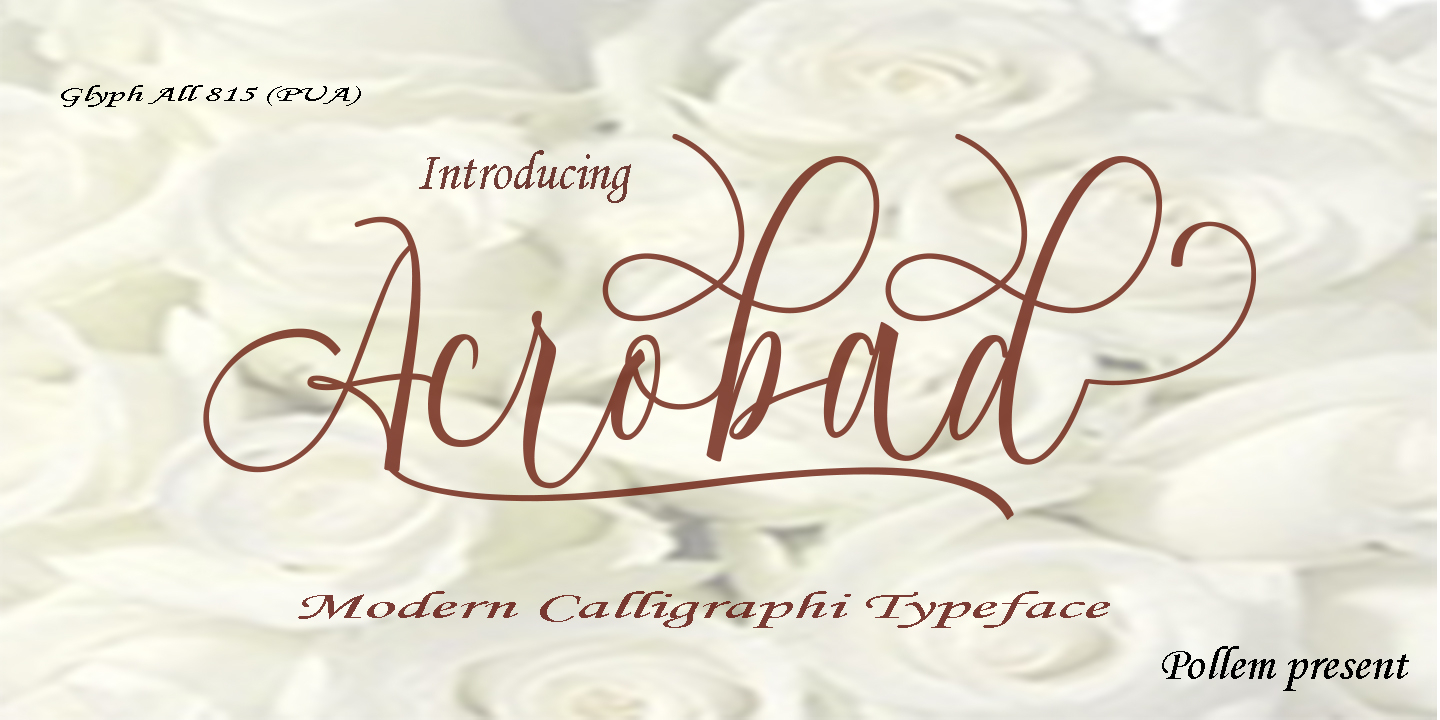
Acrobad is a script and modern calligraphy font published by pollem.Co.
Acrobad Script is a stylish calligraphy font that features a varying baseline, smooth line, classic and elegant touch. Can be used for various purposes.such as headings, signature, logos, wedding invitation, t-shirt, letterhead, signage, label, news, posters, badges etc.
Acrobad Script features 815+ glyphs and 591 alternate characters. including initial and terminal letters, alternates, ligatures and multiple language support.